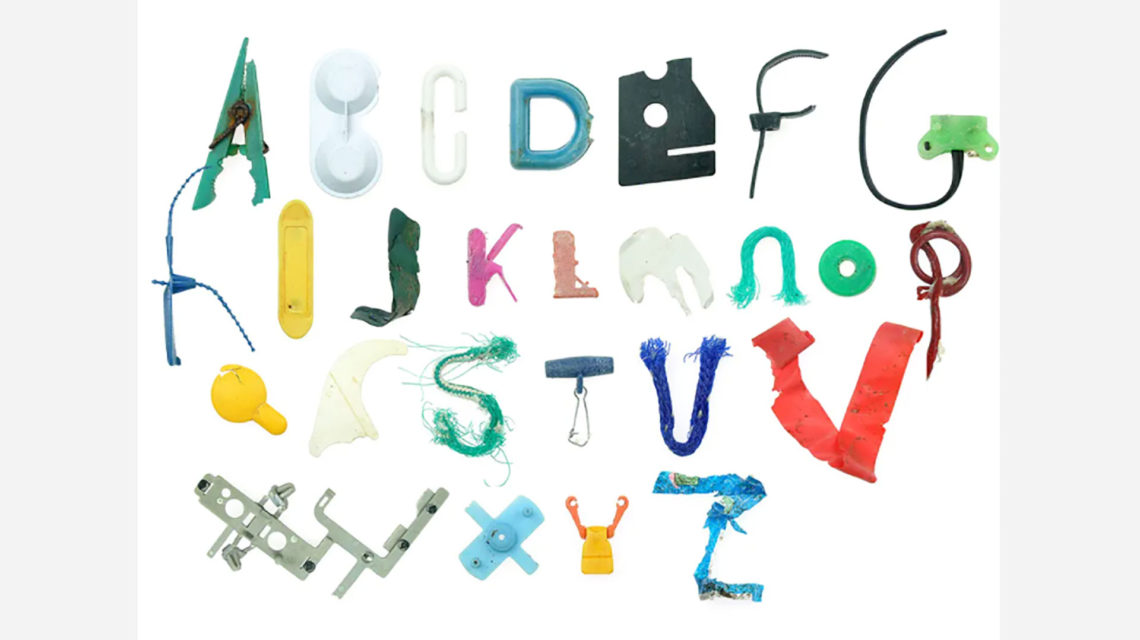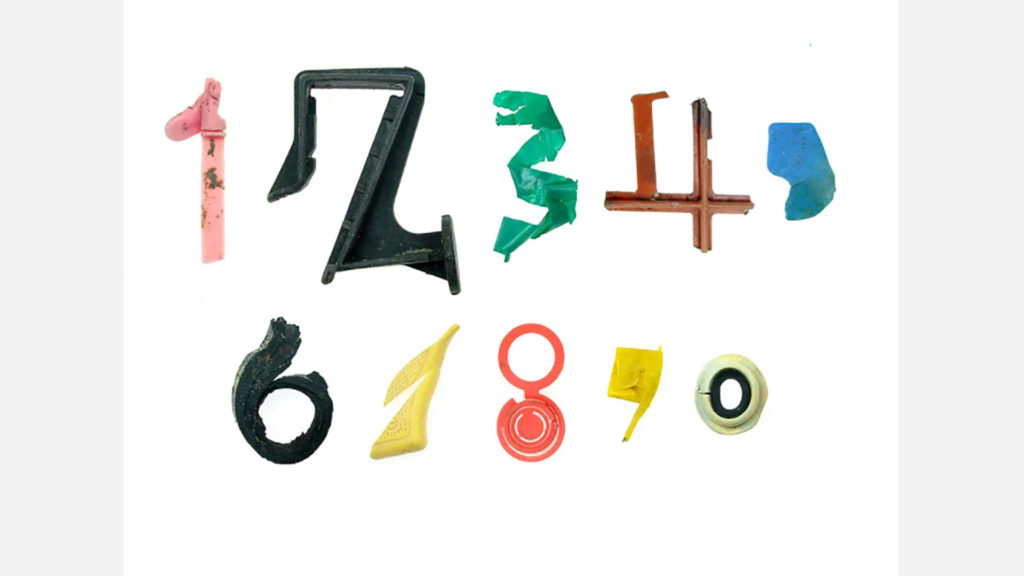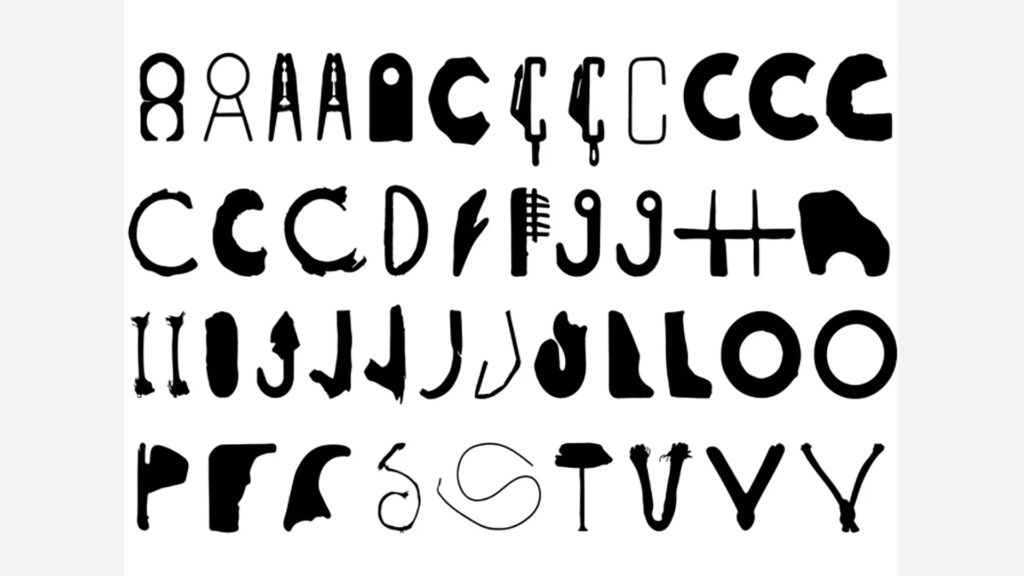
Dion Star’s Marine Debris Typeface is made from sea debris that has washed up on the shore in England.
One day while walking along the beach in England, Dion Star stumbled across a little green clothespin. Being a graphic designer, Star immediate realized that this pin was more than just a bit of litter that washed up on shore. To him, it was a letter A. As he continued his strolls, Star started seeing letters and numbers everywhere—a bit of frazzled string that looked like an S, a hunk of metal that resembled a W, a plastic tab shaped like an 8.
“I’ve always been interested in the color and form of marine litter, so I decided to collect a few pieces from the beach with a view to creating something,” he says.
That creation was Marine Debris Typeface, a full set of letters made up of the 2041 pieces of junk Star went onto collect. From the start, the designer set a few guidelines: no bottles, cans, plastic bags or candy wrappers. He only wanted pieces that had washed up on shore. He also committed to keeping everything as-is. “The rules were to find the letterforms as they were, with no manipulation of any kind,” he says. “With some letters it would have been easy to bend or twist something to fit–but that would have been cheating my own rules. I enjoyed the idea that this was just a search and I didn’t have to do any thinking, just walk and observe.”